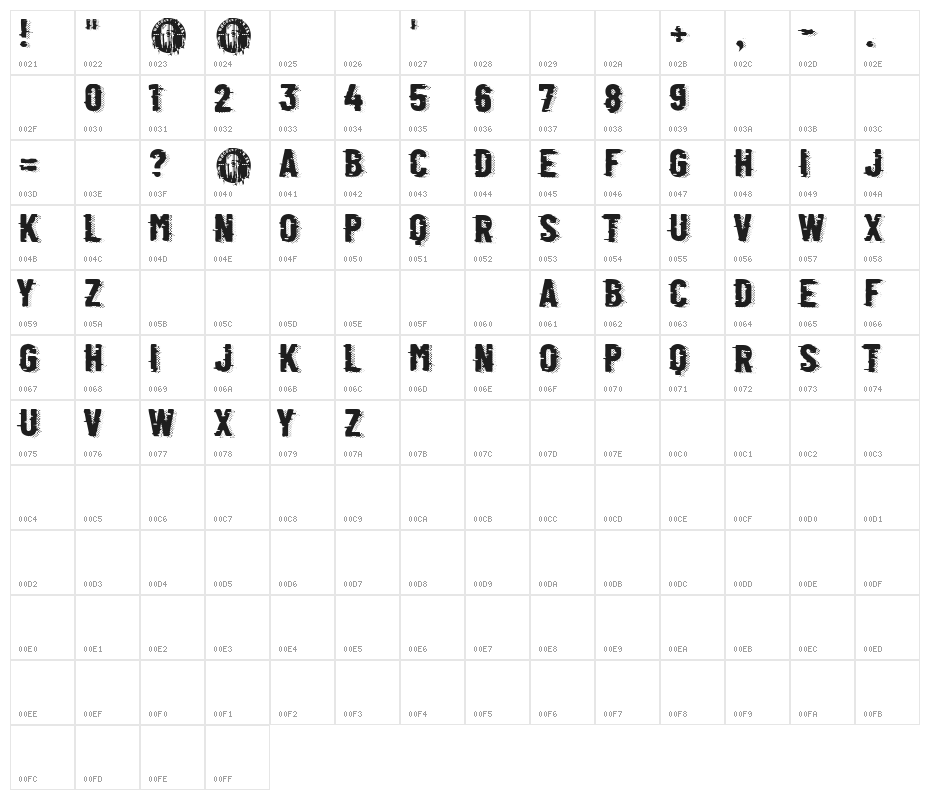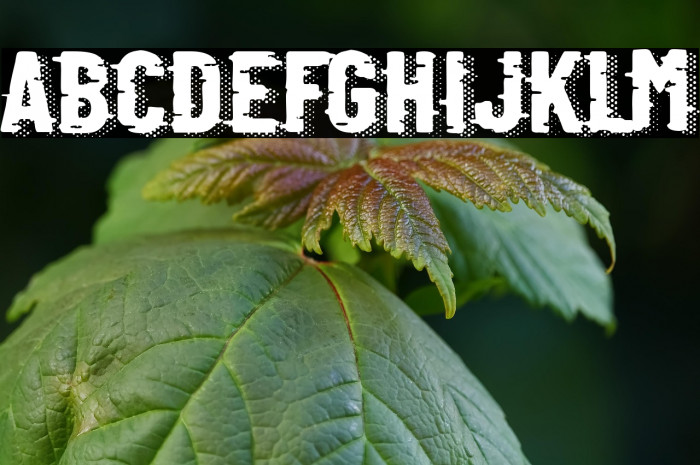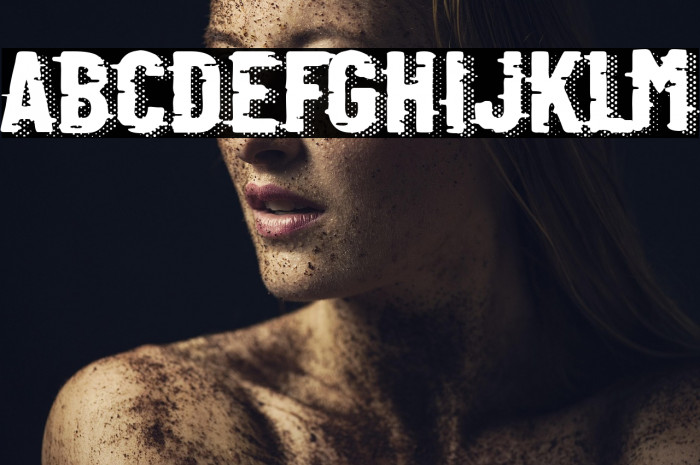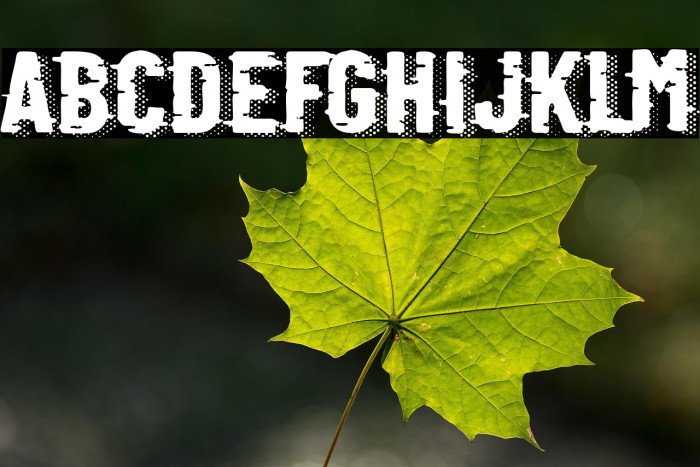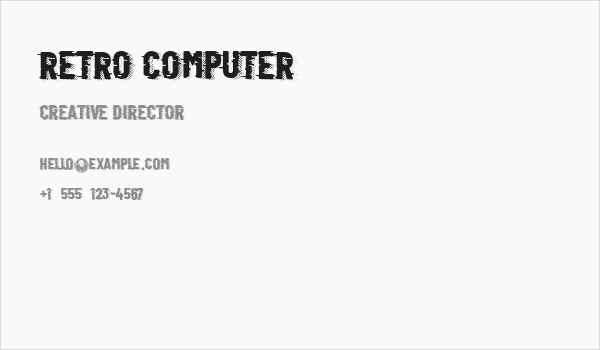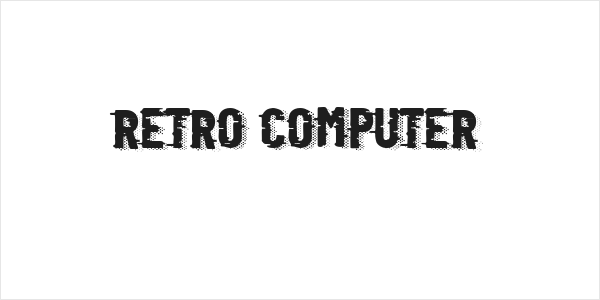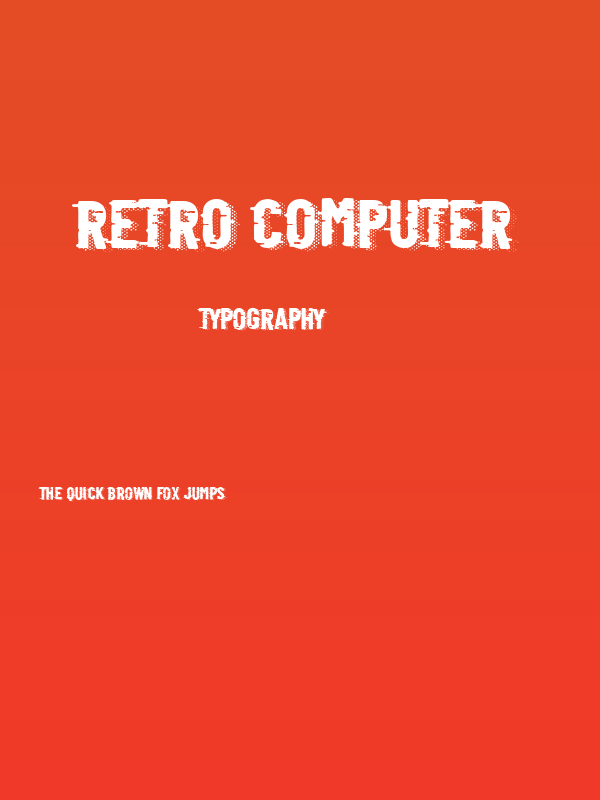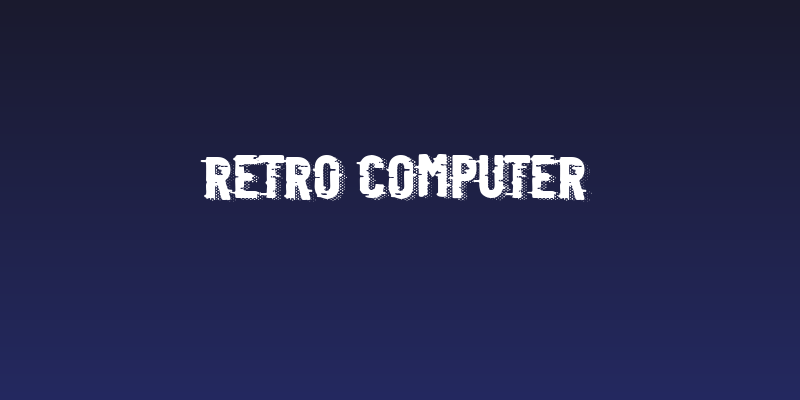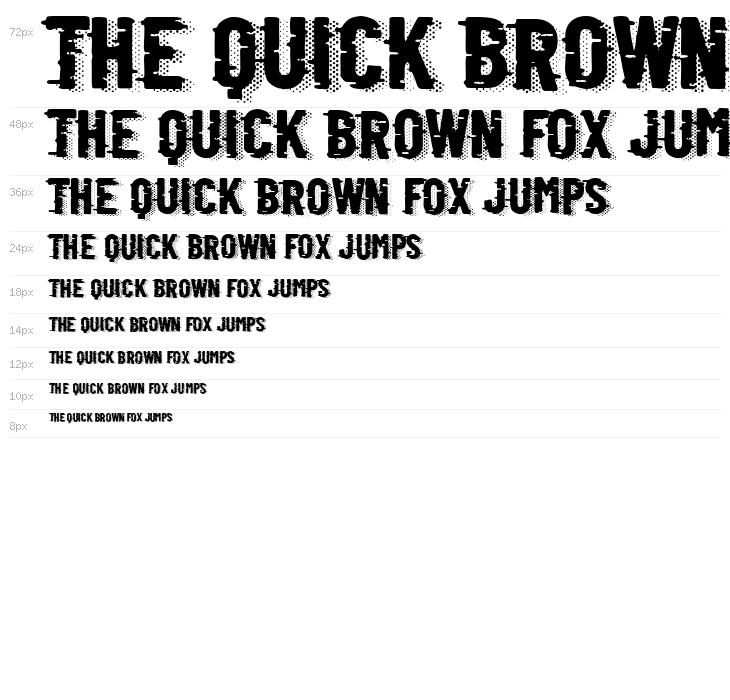
Retro Computer Font
Retro Computer Description
This font features a bold, distressed style with a unique halftone texture that gives it a vintage, retro feel. The characters are uppercase and numerals, each with a rugged, worn appearance that suggests a sense of history and character. The font's design is reminiscent of old comic book prints or vintage computer graphics, with a playful yet sturdy presence. The boldness of the letters ensures high visibility, making it suitable for eye-catching designs. The texture adds depth and interest, making each character stand out individually while maintaining a cohesive look across the entire set.
| Overall Style | Vintage |
| Proposed Projects | Ideal for retro-themed posters, vintage video game designs, comic book covers, and branding that requires a nostalgic touch. |